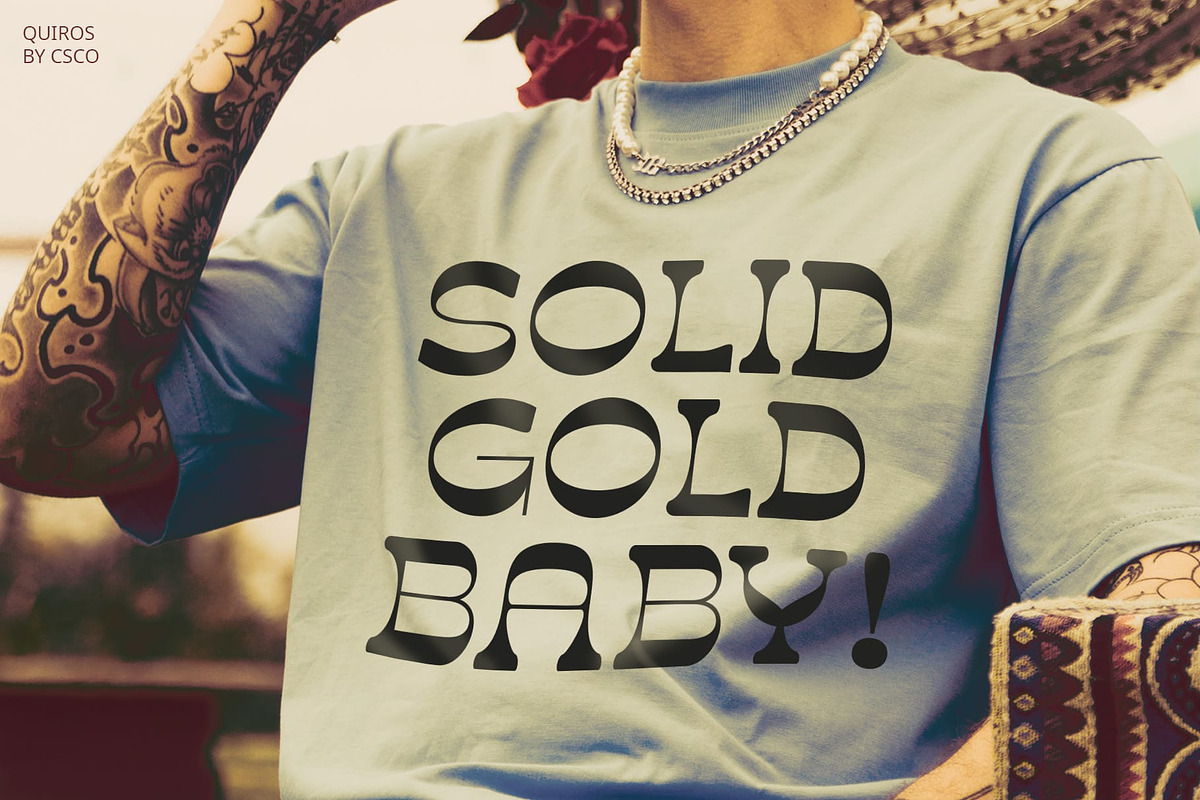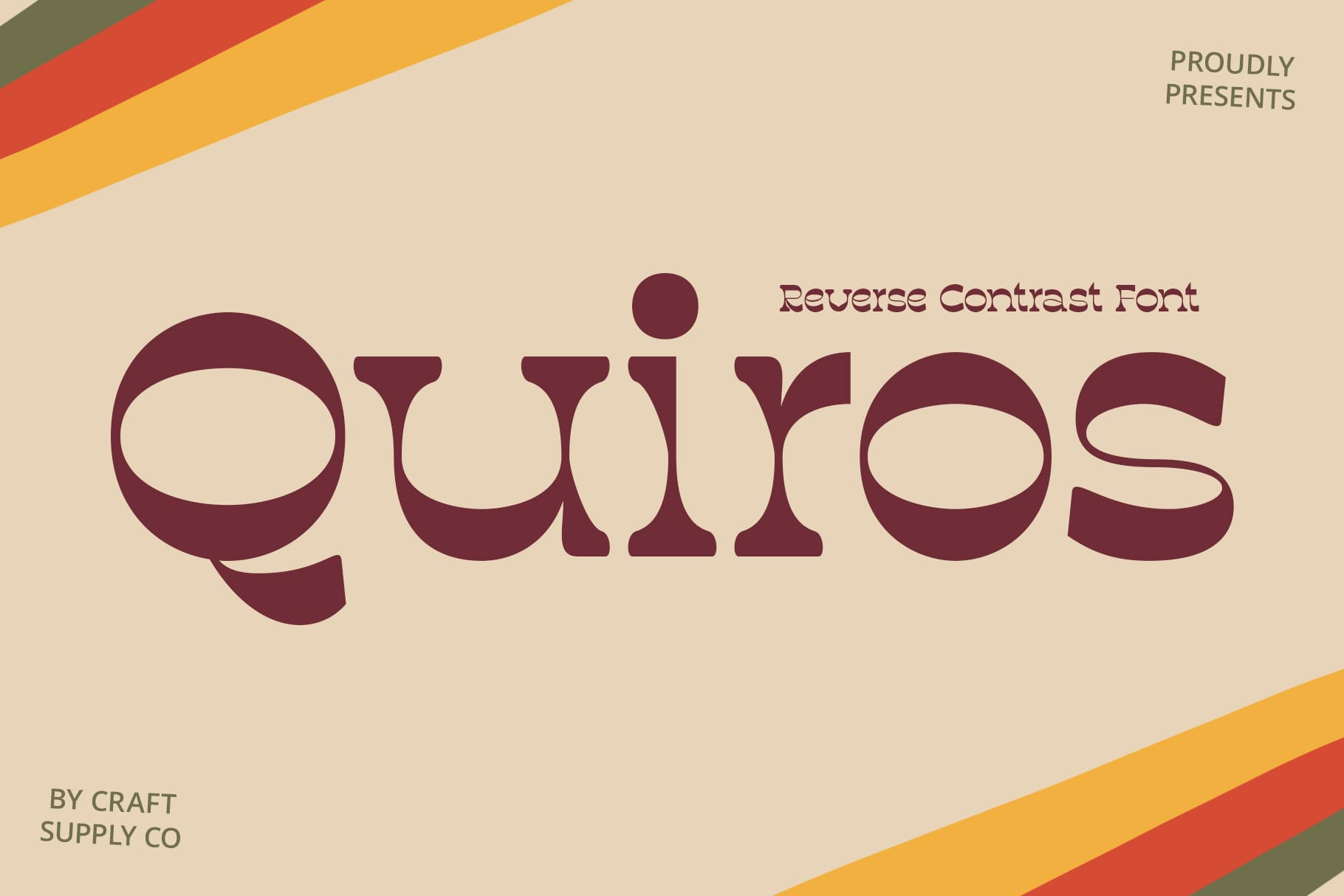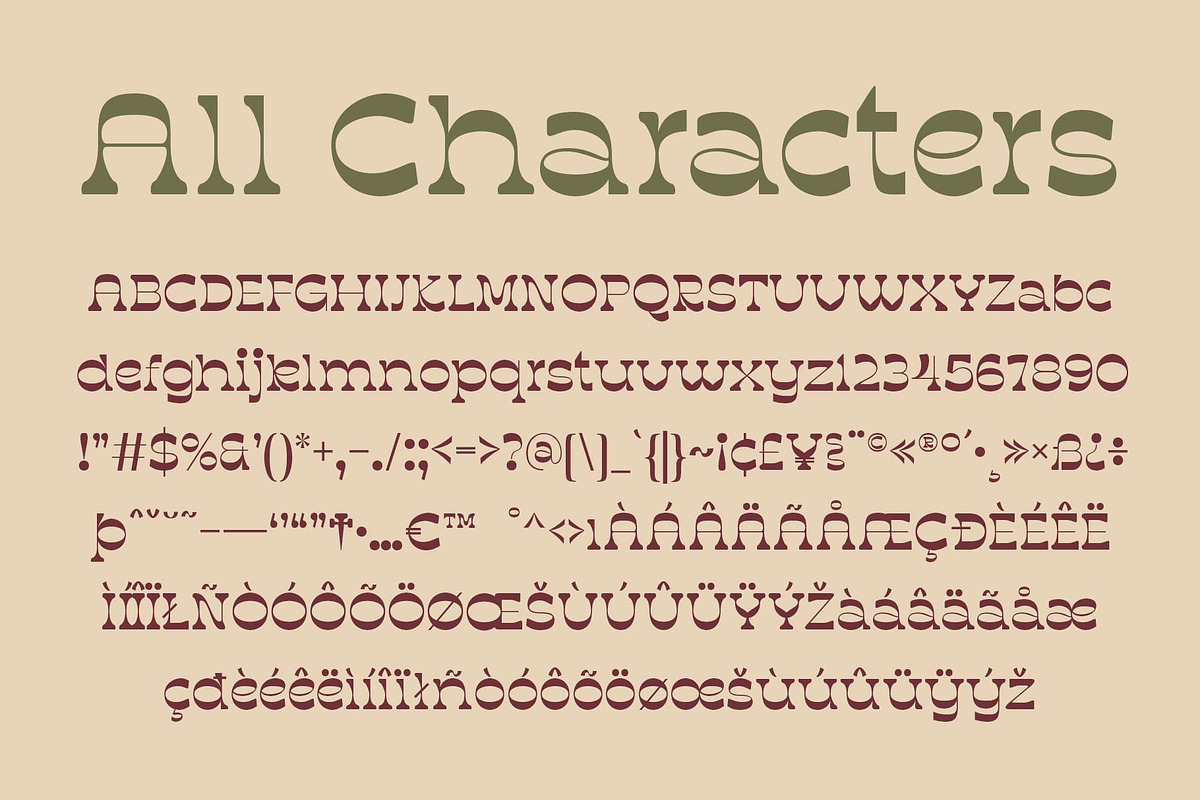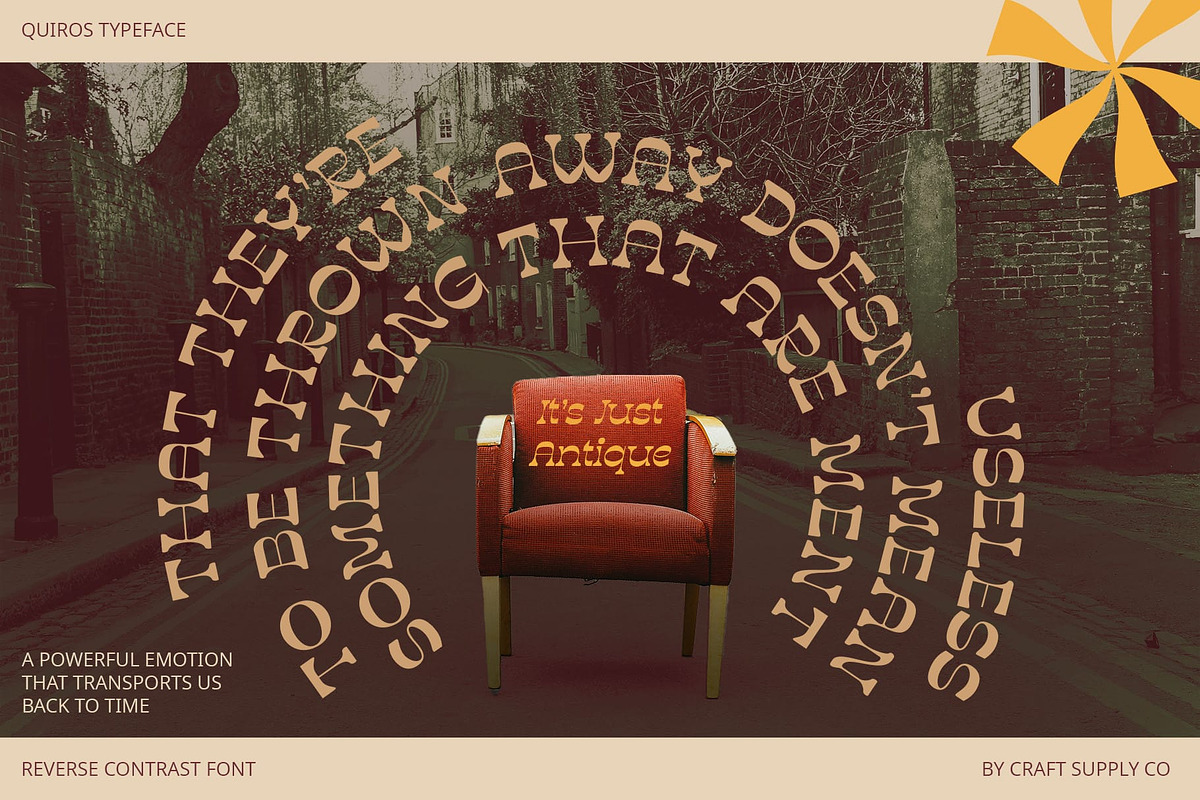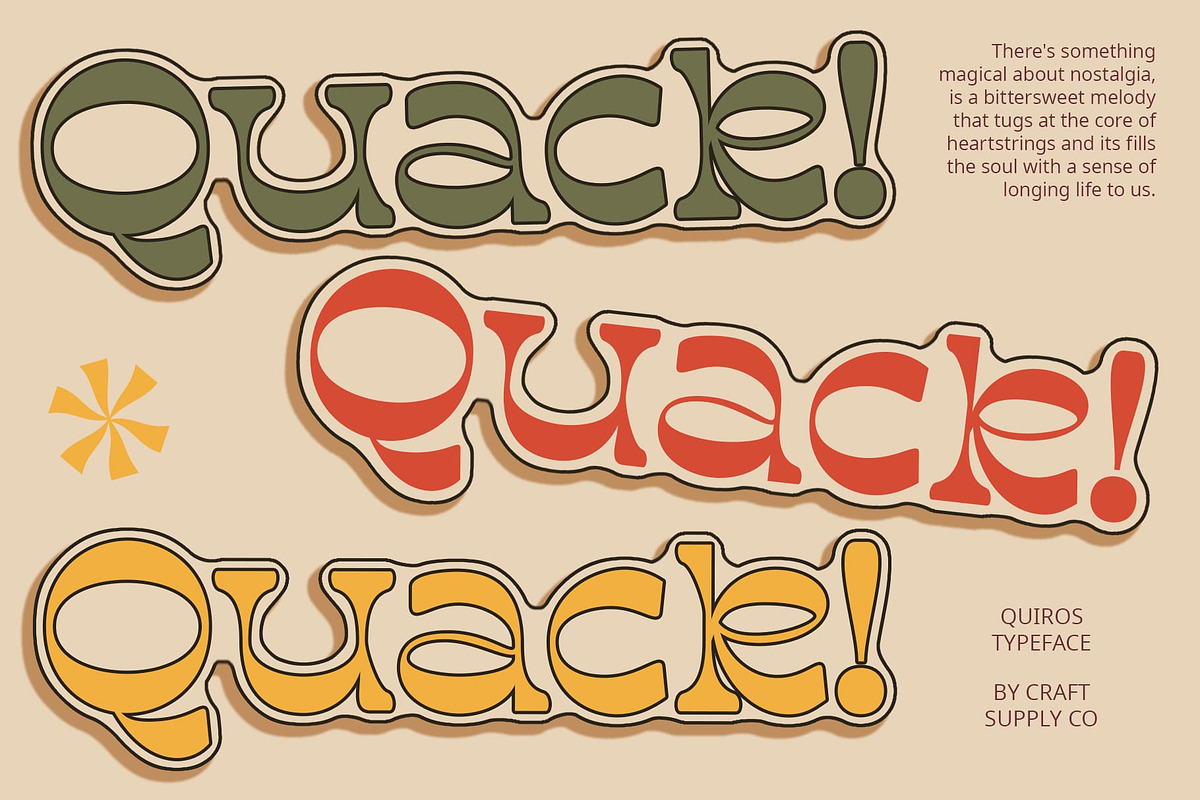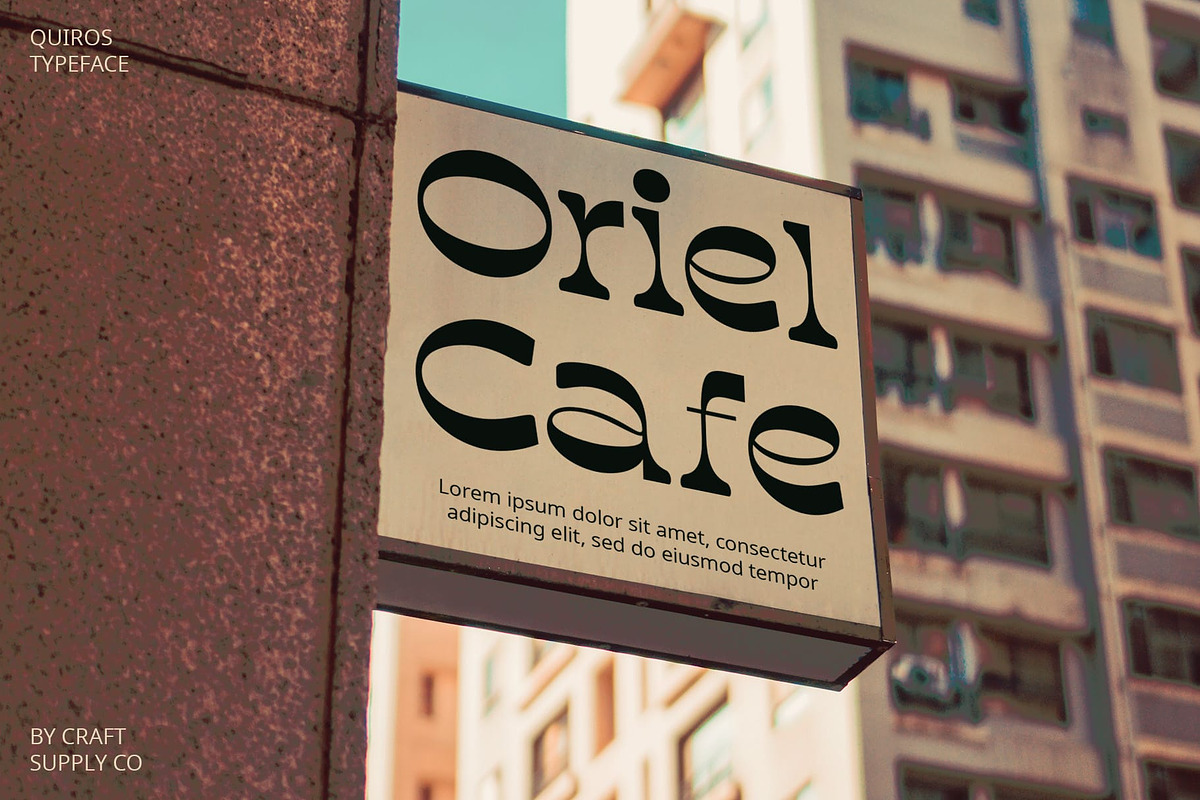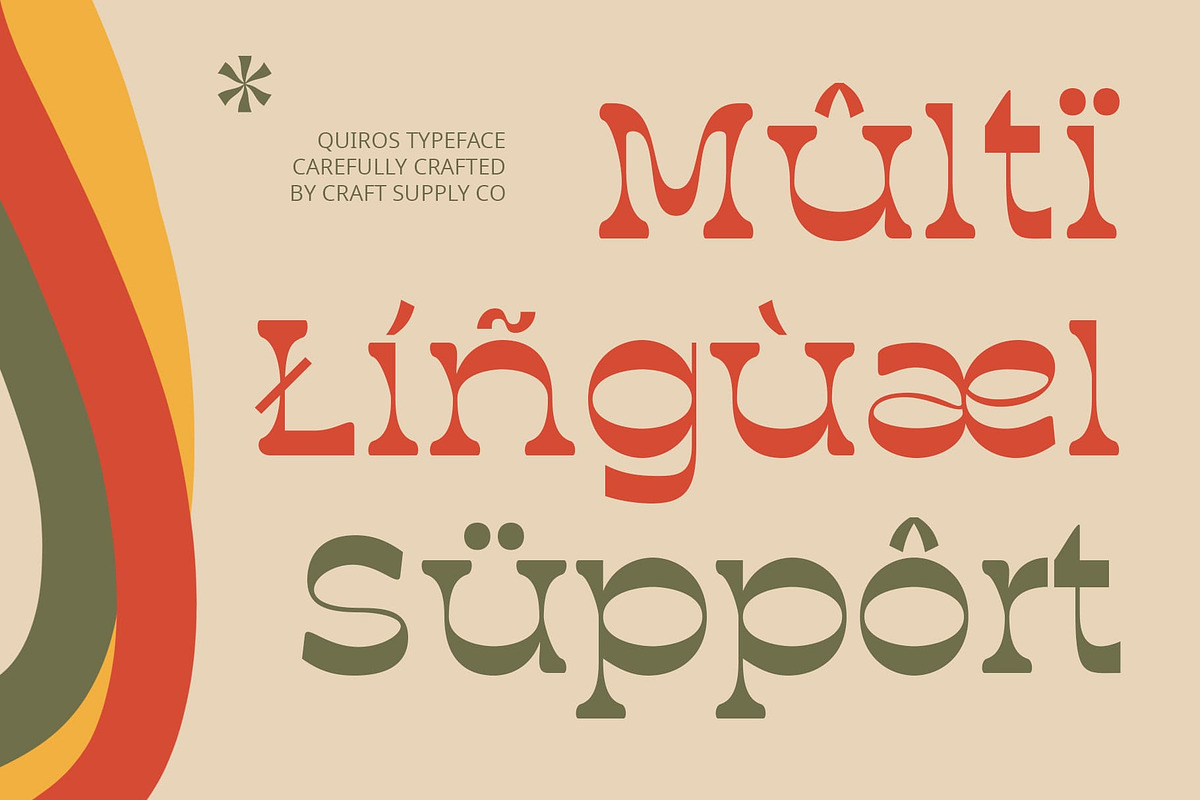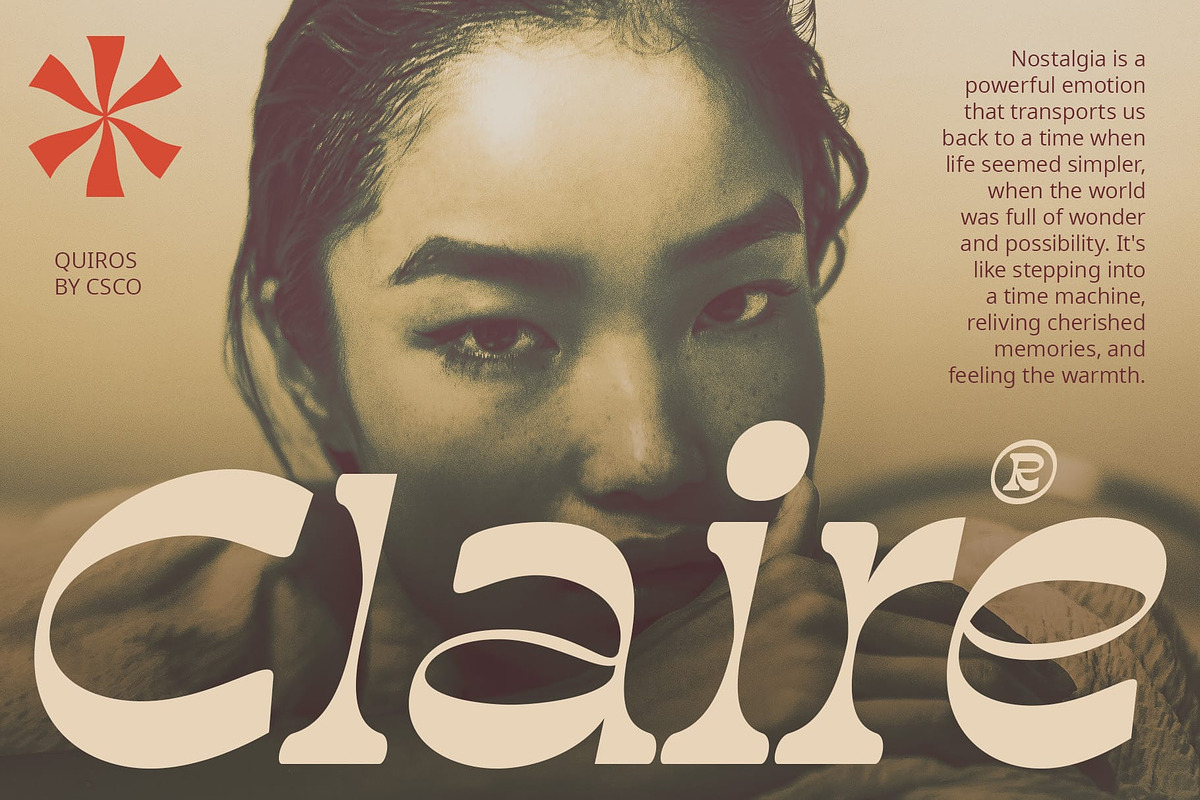
Quiros – Reverse Contrast Font
Quiros – Reverse Contrast Font: Retro Funk with a Modern Twist
Display Serif Font with Reverse Contrast
Quiros is a serif font with reverse contrast, retro style, and a funky feel. It’s typically suitable for designs aiming to highlight creativity, uniqueness, and a different impression. This font can provide a unique and different look to various designs, creating a vibrant and innovative impression.
Perfect for Creative Designs
With its versatile design, Quiros Font is suitable for a variety of creative projects, including posters, logos, and branding materials. Its reverse contrast and retro style add a touch of nostalgia and personality, ensuring that your designs stand out from the crowd.
Enhanced Creativity
Quiros Font prioritizes creativity, ensuring that your designs are both unique and engaging. Whether used in print or digital media, this font adds a dynamic and energetic element that captivates viewers.
Ideal for Vibrant and Innovative Designs
Whether you’re designing a music poster, creating a logo for a trendy brand, or developing packaging for a unique product, Quiros Font is the perfect choice for projects that require a vibrant and innovative look. Its retro funk style ensures that your designs will always look fresh and exciting.
Make a statement with Quiros Font and add a touch of retro funk to your designs.
- Quiros Regular
- Quiros Italic